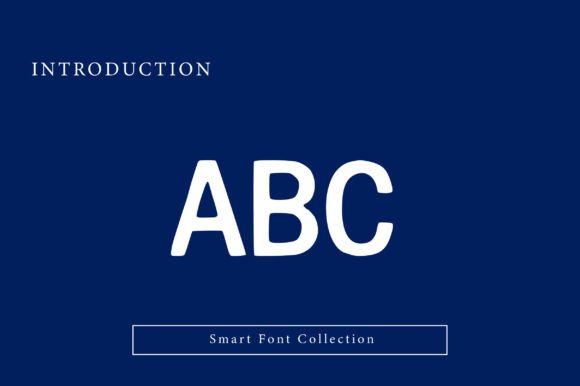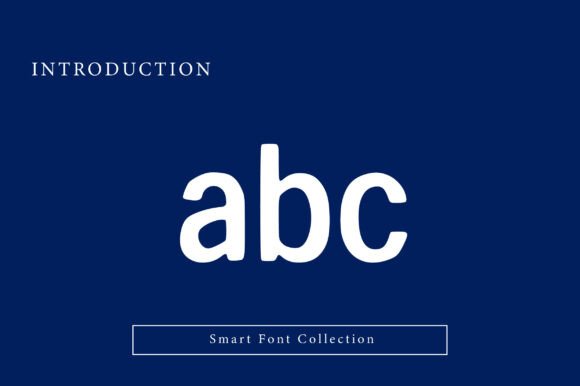
Introducing Floravine Font: The Perfect Blend of Modernity and Friendliness
In the world of typography, finding the right font can make all the difference in the success of a design project. For designers and crafters looking for a typeface that embodies modernity, friendliness, and approachability, Floravine Script is an excellent choice. This clean, bold, and contemporary sans serif script is designed to provide a soft and inviting aesthetic, making it perfect for a wide range of applications.
Design Characteristics of Floravine Script
Floravine Script boasts monolinear strokes with rounded terminals, giving it a unique and distinctive look. The letterforms are characterized by their simple, upright structure and clear spacing, ensuring high legibility despite its handwritten origins. This harmonious blend of modernity and friendliness makes Floravine Script an ideal choice for designers seeking a typeface that can convey a sense of approachability and humanity.
Key Features of Floravine Font
• Monolinear Strokes: Floravine Script features monolinear strokes, which provide a sense of consistency and harmony to the letterforms.
• Rounded Terminals: The rounded terminals add a touch of softness and approachability to the typeface, making it perfect for designs that require a friendly tone.
• Simple and Upright Structure: The simple and upright structure of the letterforms ensures high legibility and makes Floravine Script easy to read.
• Clear Spacing: The clear spacing between letters and words ensures that the text is easy to read and understand, even at smaller font sizes.
Use Cases for Floravine Font
Floravine Script is an incredibly versatile typeface that can be used in a wide range of applications. Some of the most suitable use cases include:
• Modern Lifestyle Branding: Floravine Script is perfect for modern lifestyle brands that require a typeface that embodies friendliness, approachability, and modernity.
• Organic Product Packaging: The clean and natural look of Floravine Script makes it an excellent choice for organic product packaging, where a friendly and approachable tone is essential.
• Clean Social Media Graphics: Floravine Script is ideal for clean social media graphics, where a bold and contemporary typeface is required to grab the attention of the audience.
• Minimalist Editorial Headers: The simple and elegant design of Floravine Script makes it perfect for minimalist editorial headers, where a friendly and human touch is required without the complexity of traditional cursive flourishes.
Benefits of Using Floravine Font
Using Floravine Script in your design projects offers several benefits, including:
• Improved Legibility: The clear spacing and simple structure of Floravine Script ensure high legibility, making it easy for readers to understand the text.
• Enhanced Friendliness: The soft and approachable aesthetic of Floravine Script conveys a sense of friendliness and approachability, making it perfect for designs that require a human touch.
• Versatility: Floravine Script is a versatile typeface that can be used in a wide range of applications, from modern lifestyle branding to minimalist editorial headers.
• Modernity: The clean and contemporary design of Floravine Script makes it perfect for designers seeking a typeface that embodies modernity and sophistication.
In conclusion, Floravine Script is an excellent choice for designers and crafters looking for a typeface that embodies modernity, friendliness, and approachability. With its monolinear strokes, rounded terminals, simple structure, and clear spacing, Floravine Script is perfect for a wide range of applications, from modern lifestyle branding to minimalist editorial headers. By using Floravine Script in your design projects, you can improve legibility, enhance friendliness, and add a touch of modernity to your designs.